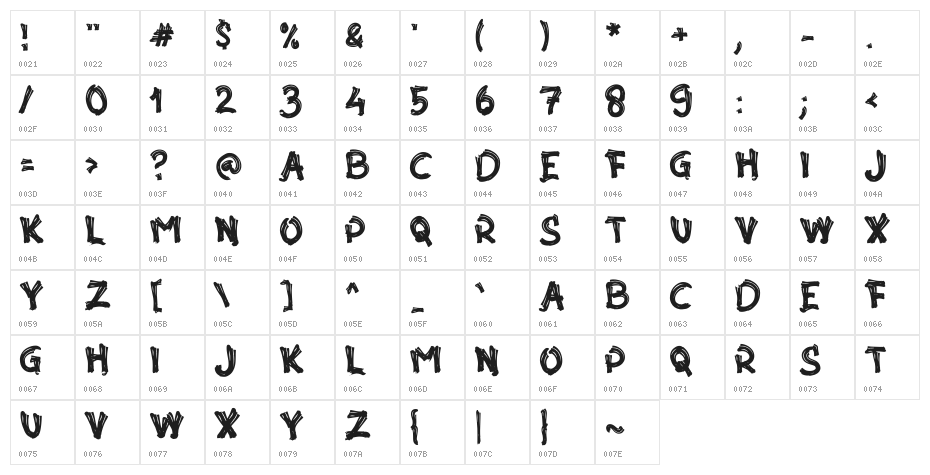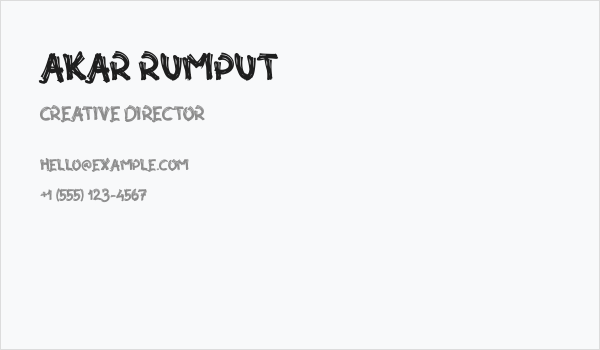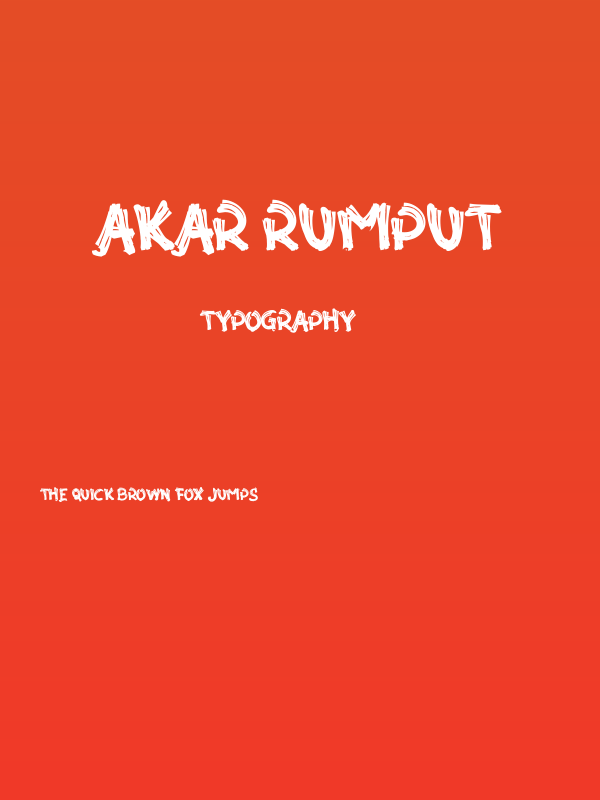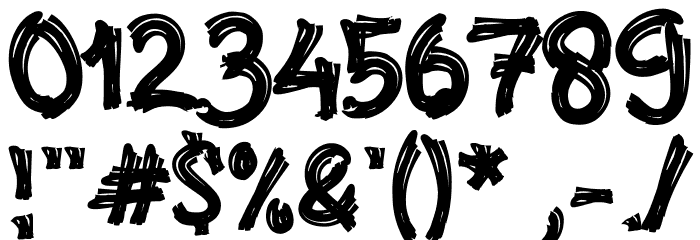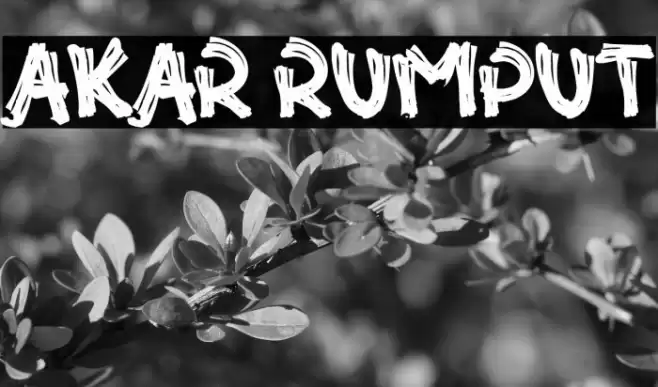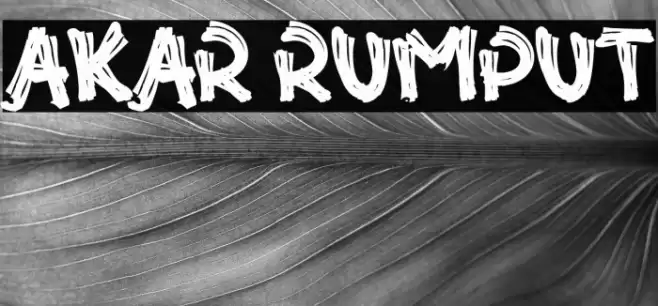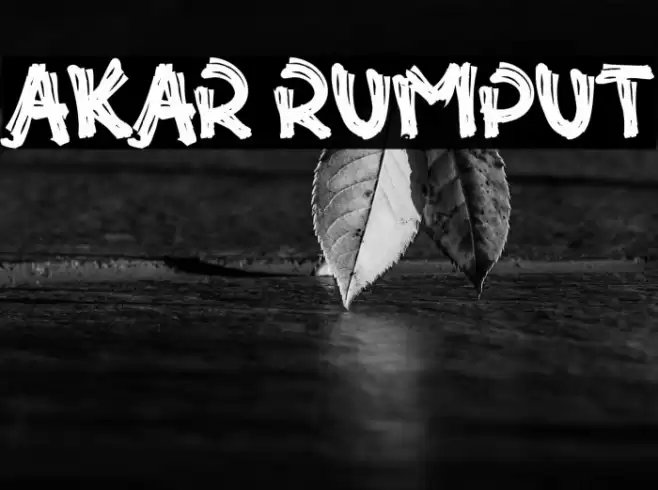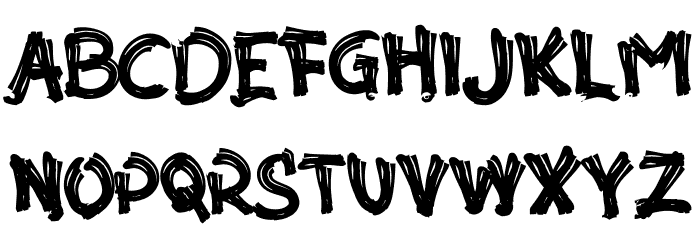
Akar Rumput Font
Akar Rumput Description
This font features a bold, expressive style with a hand-drawn appearance. The strokes are thick and uneven, giving it a raw, energetic feel. The characters have a playful, graffiti-like quality, with exaggerated curves and angles that create a sense of movement. The uppercase and lowercase letters maintain a consistent style, while the numbers and special characters complement the overall design. This font is ideal for projects that require a dynamic and eye-catching look, such as posters, album covers, or branding for creative industries.
| Proposed Projects | Ideal for posters, album covers, street art designs, and creative branding. |